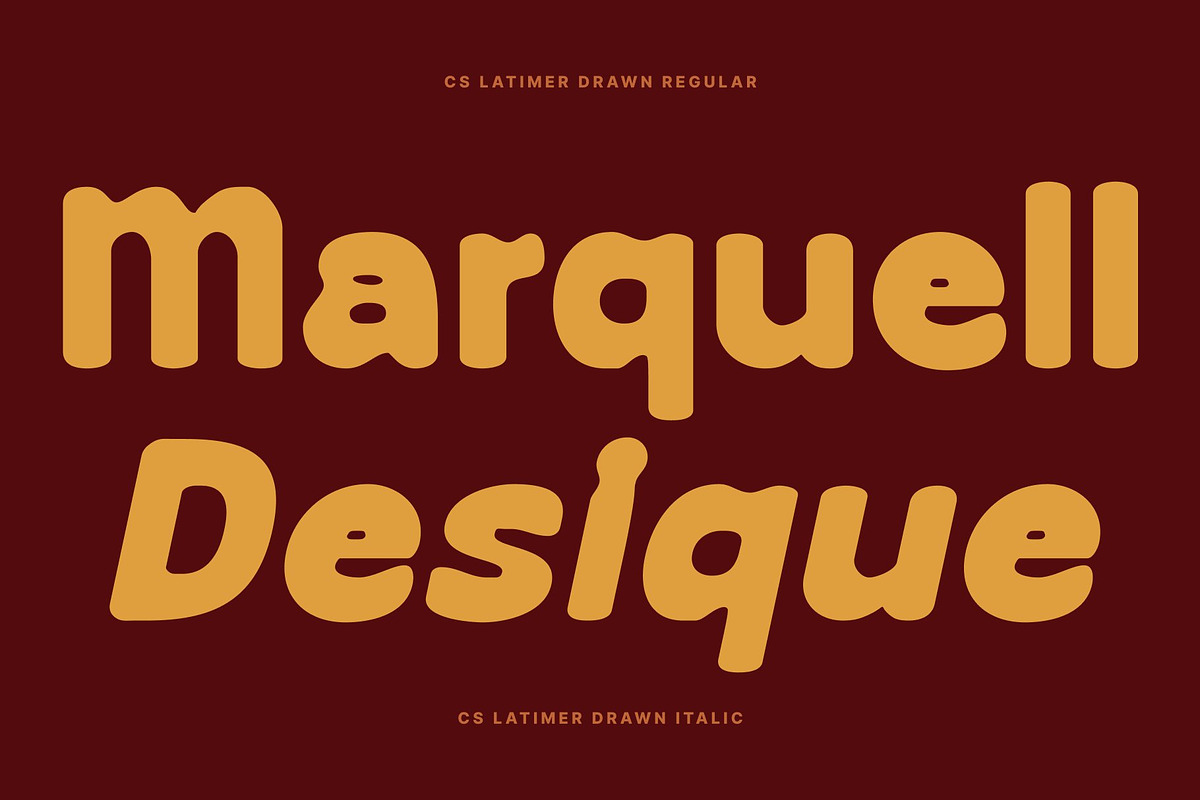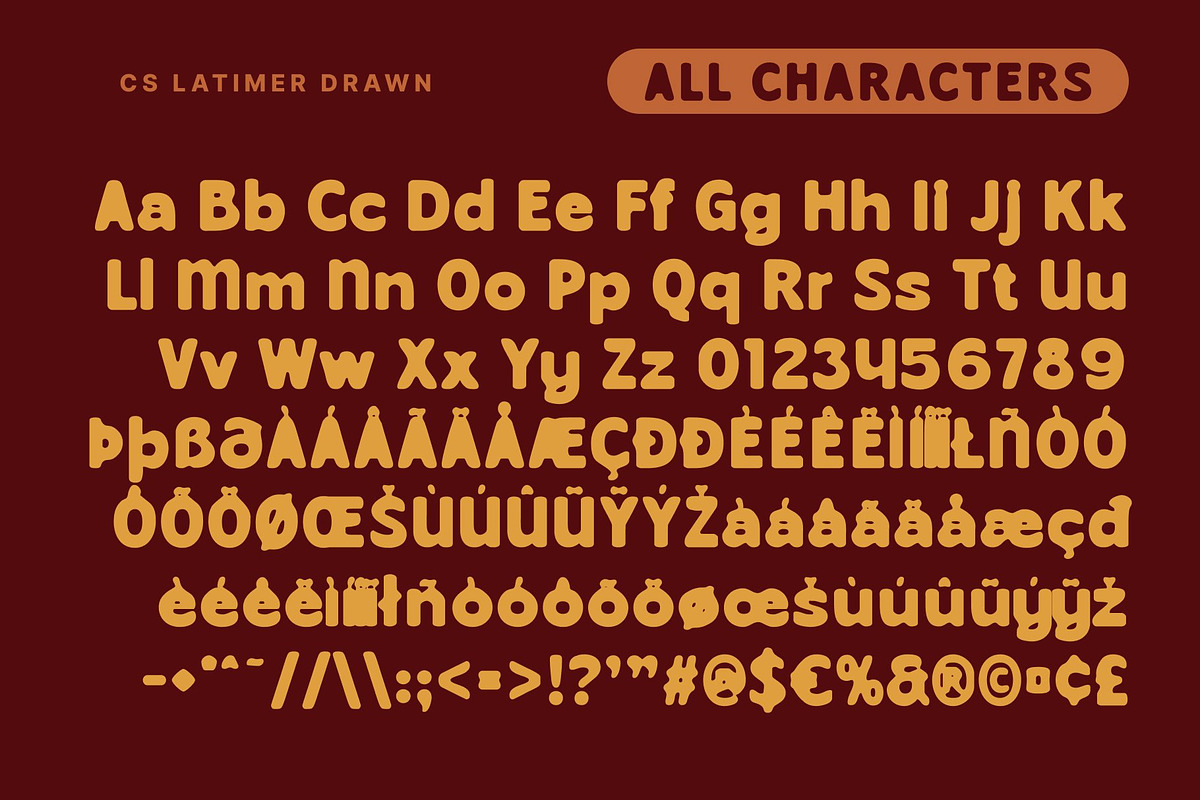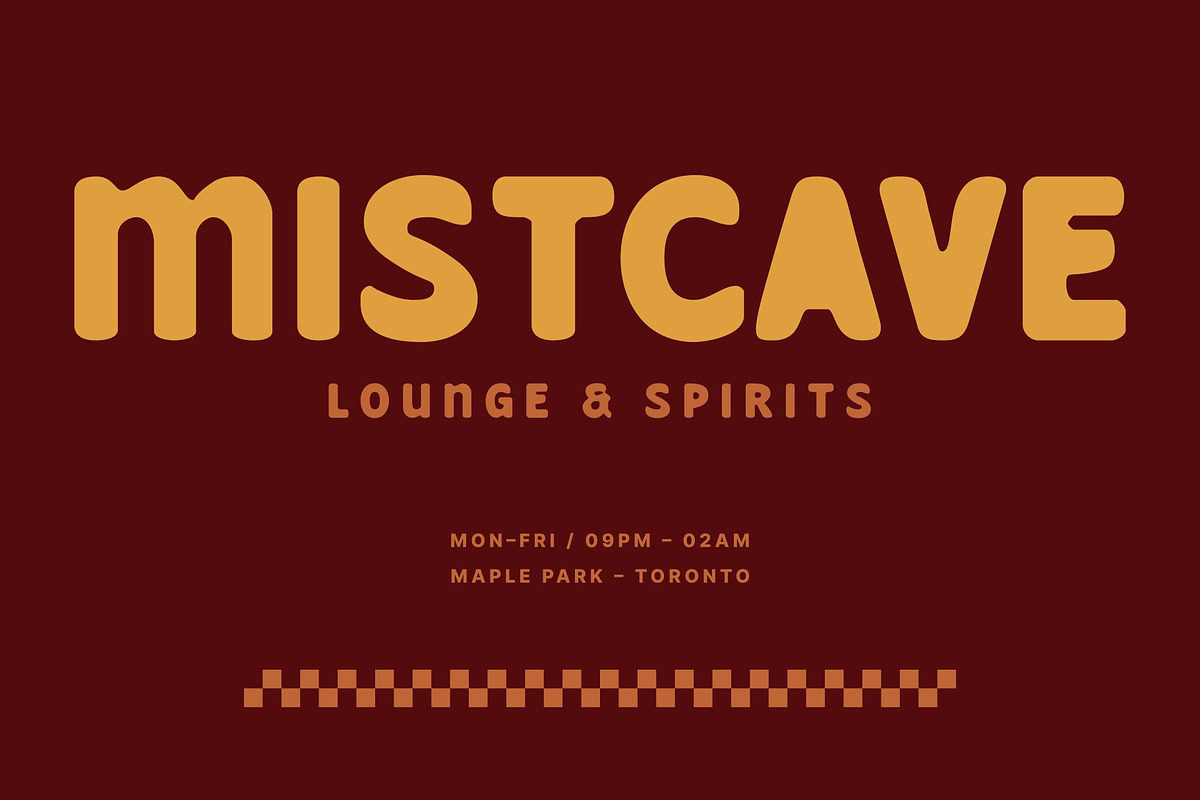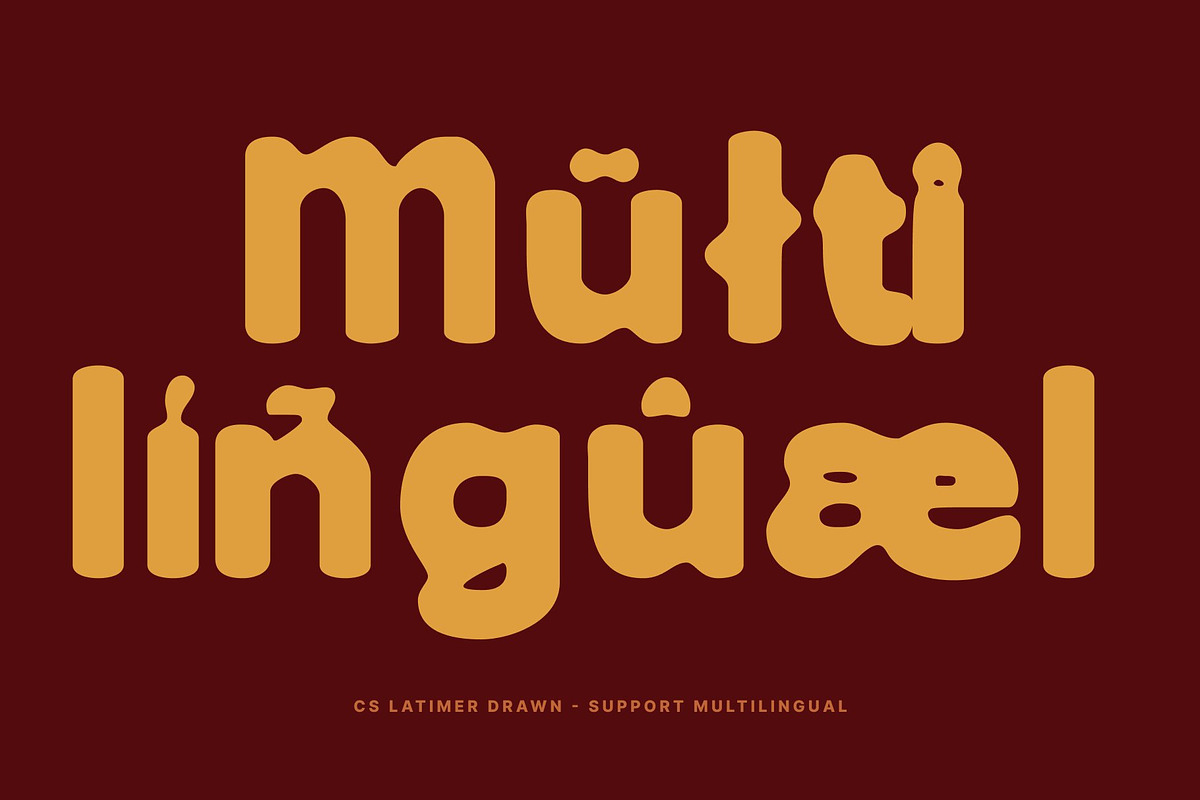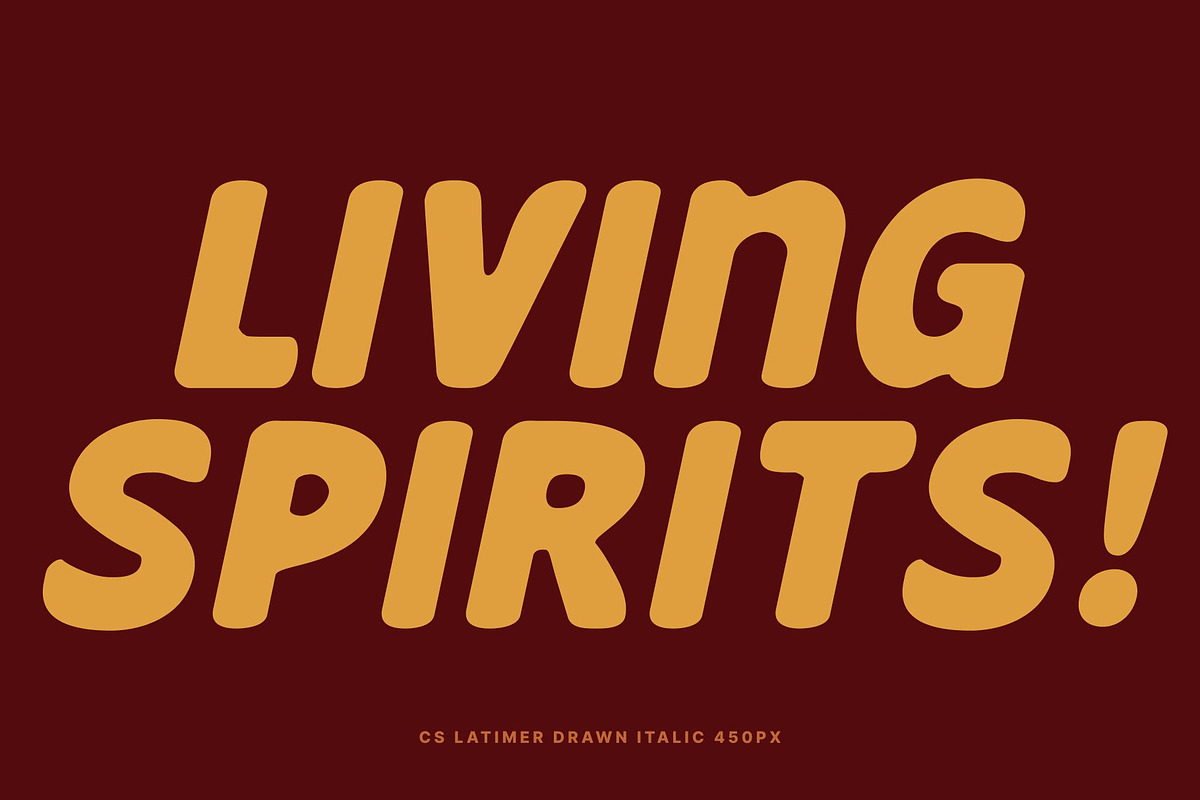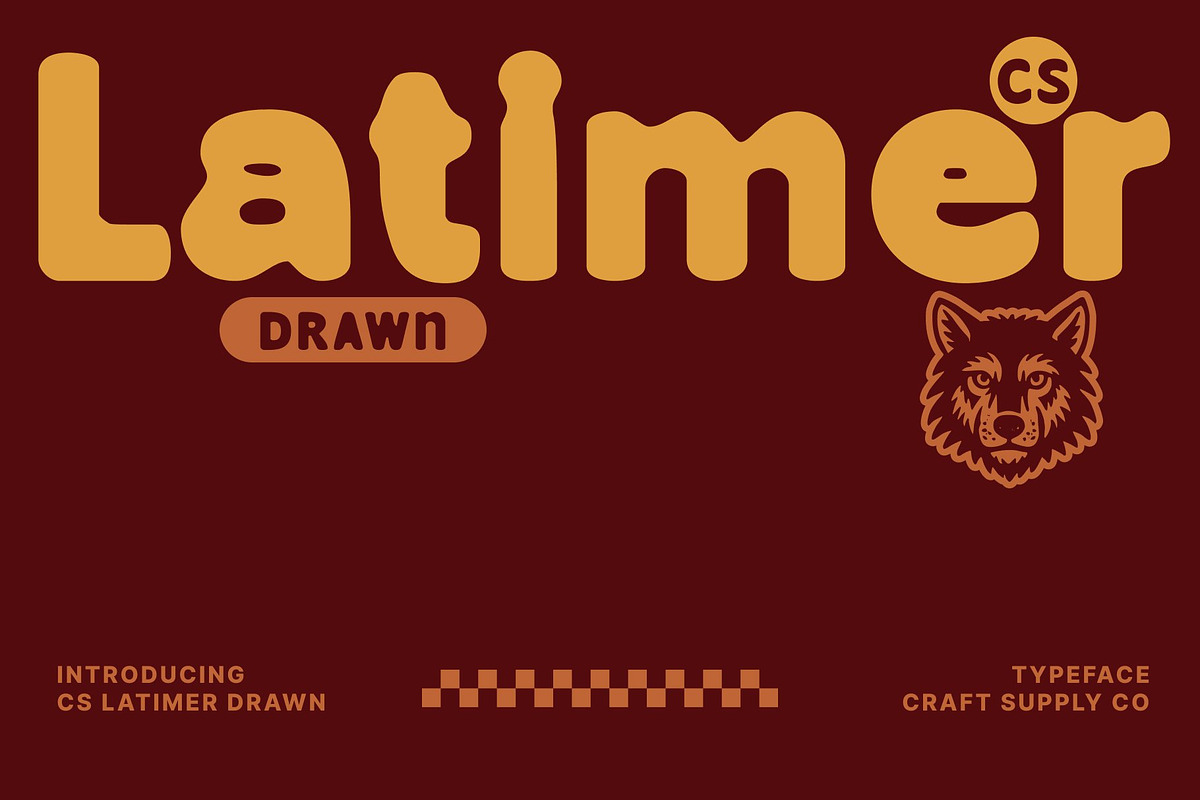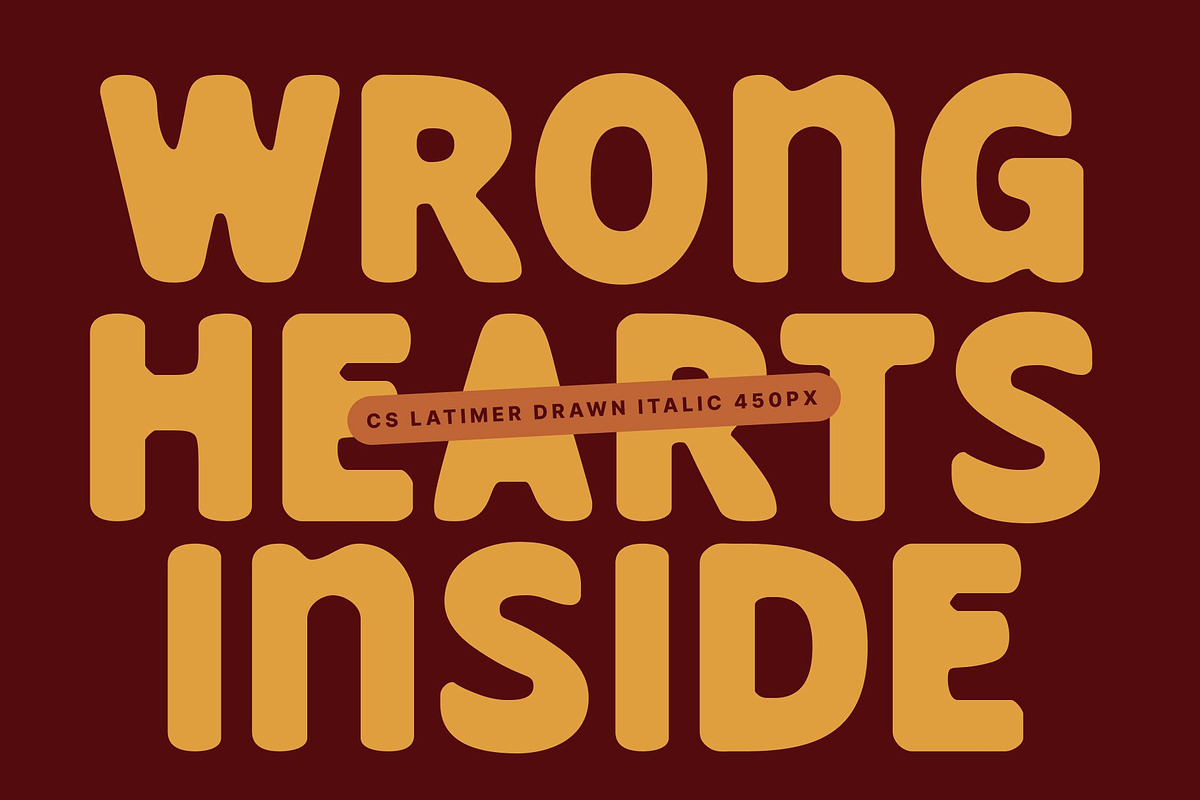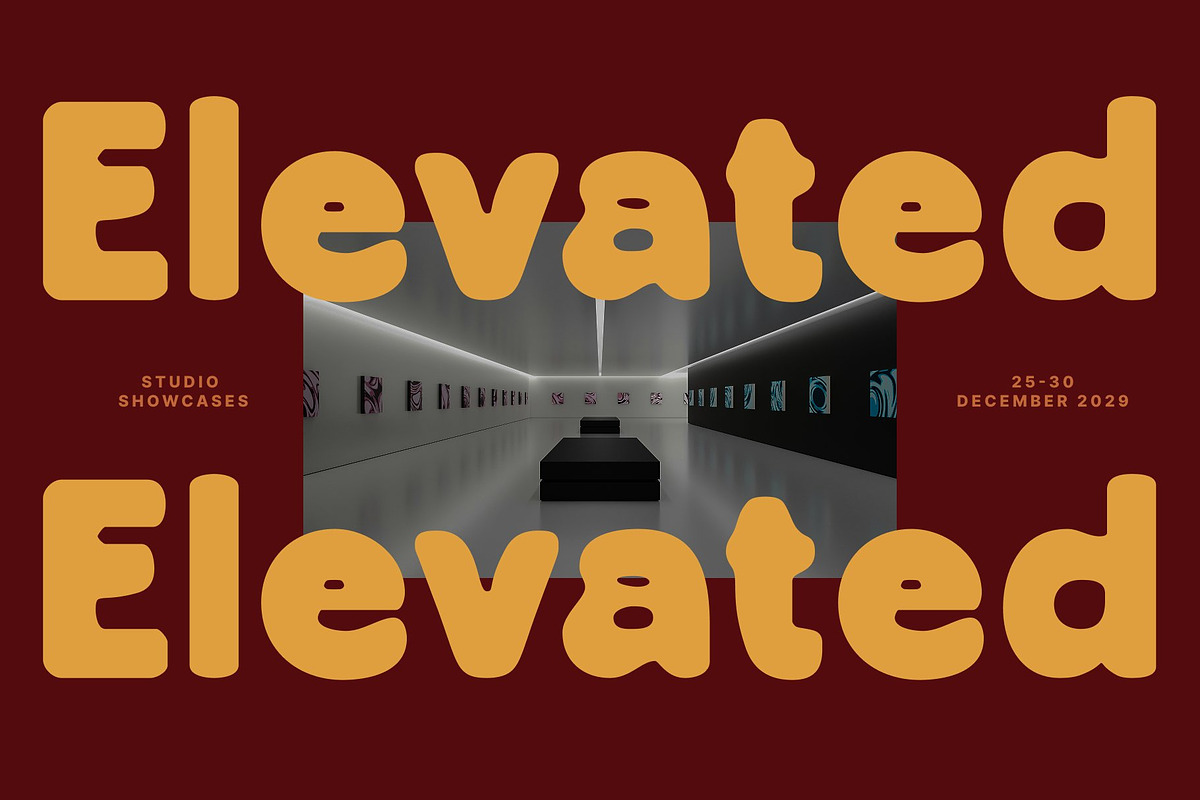
CS Latimer Drawn
CS Latimer Drawn – Retro Display Font with Playful Hand-Drawn Texture
A Nostalgic Retro Style Revived with Bold, Playful Energy This is a timeless retro display font designed to bring the charm of the past back into modern visuals. With bold shapes, friendly curves, and a lively vintage rhythm, this font instantly evokes nostalgia. It captures the vibrant personality of classic typography while delivering a fresh, expressive twist that makes every word feel warm and inviting.
Hand-Drawn Texture That Adds Ink Overflow & Authentic Character What sets this font apart is its distinctive hand-drawn effect. Each letter showcases subtle ink overflow and textured pen strokes, giving it an imperfect, organic feel reminiscent of traditional signwriting and analog lettering. This drawn texture reinforces its nostalgic soul, adding depth, warmth, and a handcrafted quality that elevates your design with artistic authenticity.
Ideal for Branding, Posters, and Retro-Inspired Visual Campaigns This font shines in creative projects that require charm, boldness, and vintage appeal. Use it for branding, posters, packaging, merchandise, social media graphics, or retro-themed campaigns that need a standout display typeface.
A Versatile Retro Font Crafted for Expressive Creativity Whether you’re designing a nostalgic brand identity, an upbeat promotional poster, or a playful advertising concept, this font provides the perfect blend of retro spirit and artistic imperfection.